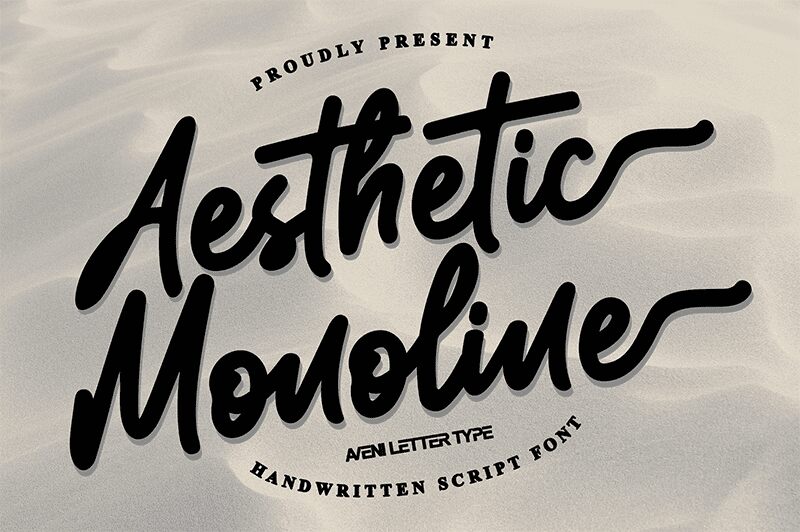
Aesthetic Monoline, a captivating handwritten font crafted by Aveni Letter Type, exudes a refined and distinctive charm. This expressive typeface seamlessly blends fluid strokes with a touch of elegant simplicity, creating a striking visual appeal. Aesthetic Monoline's organic, yet polished aesthetic invokes a sense of artistry and thoughtfulness, making it a versatile choice for a wide range of design projects.
The font's versatility shines through its ability to elevate branding, packaging, editorial layouts, and even digital interfaces. Its natural, handcrafted appearance lends an authentic and personalized touch to any design, while the monoline structure ensures a cohesive and harmonious composition. Aesthetic Monoline's unique character is a testament to the skill and vision of its designer, Aveni Letter Type, making it a captivating option for those seeking to infuse their designs with a touch of refined elegance.